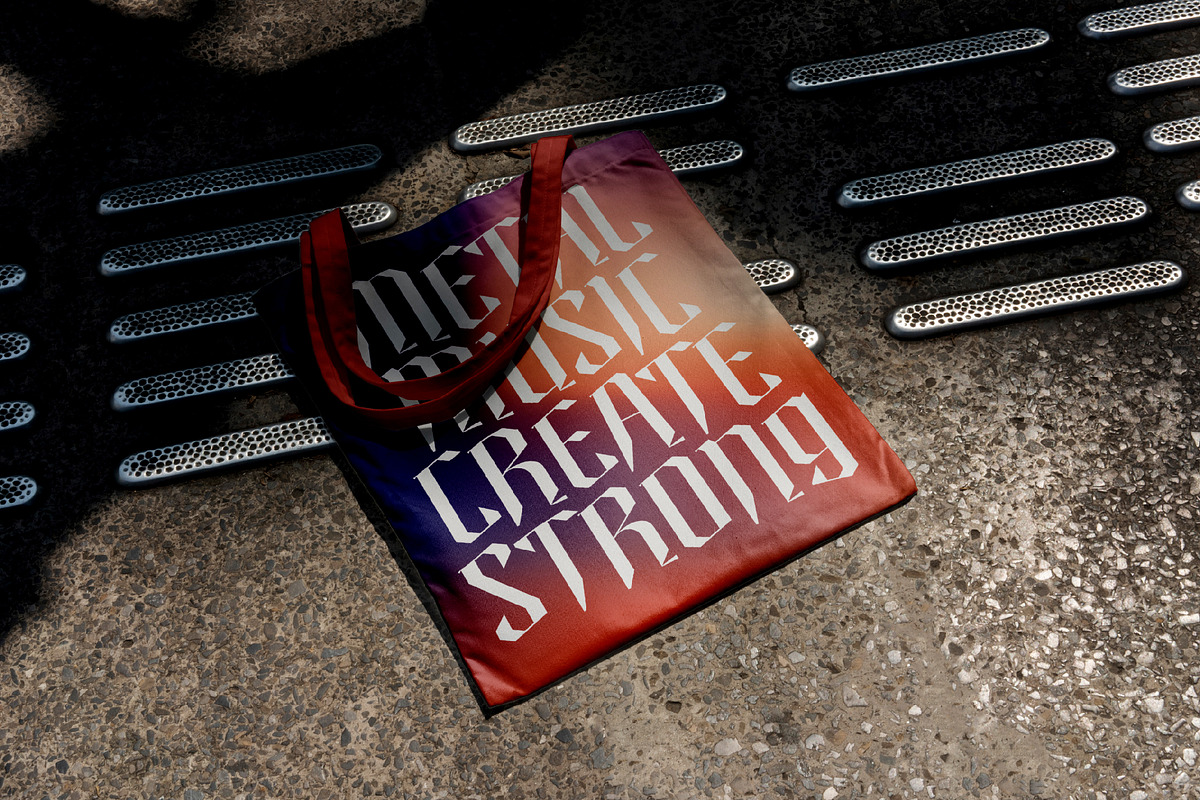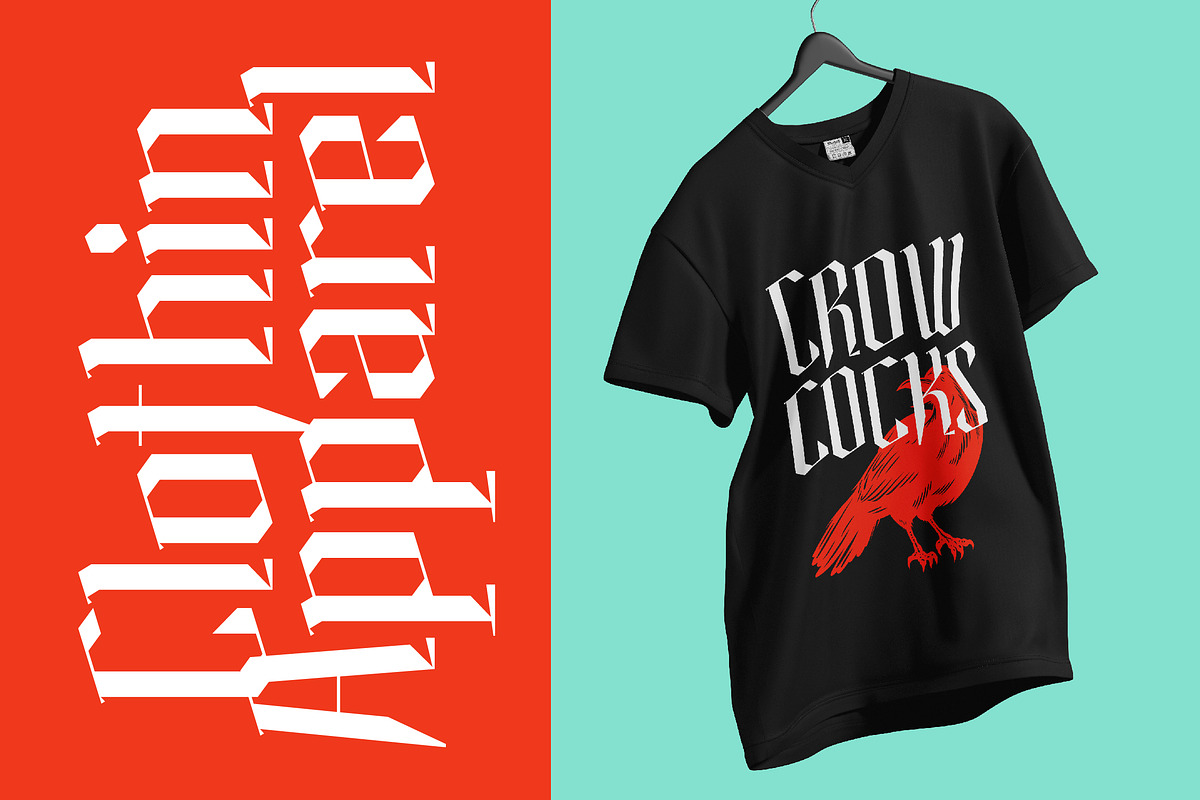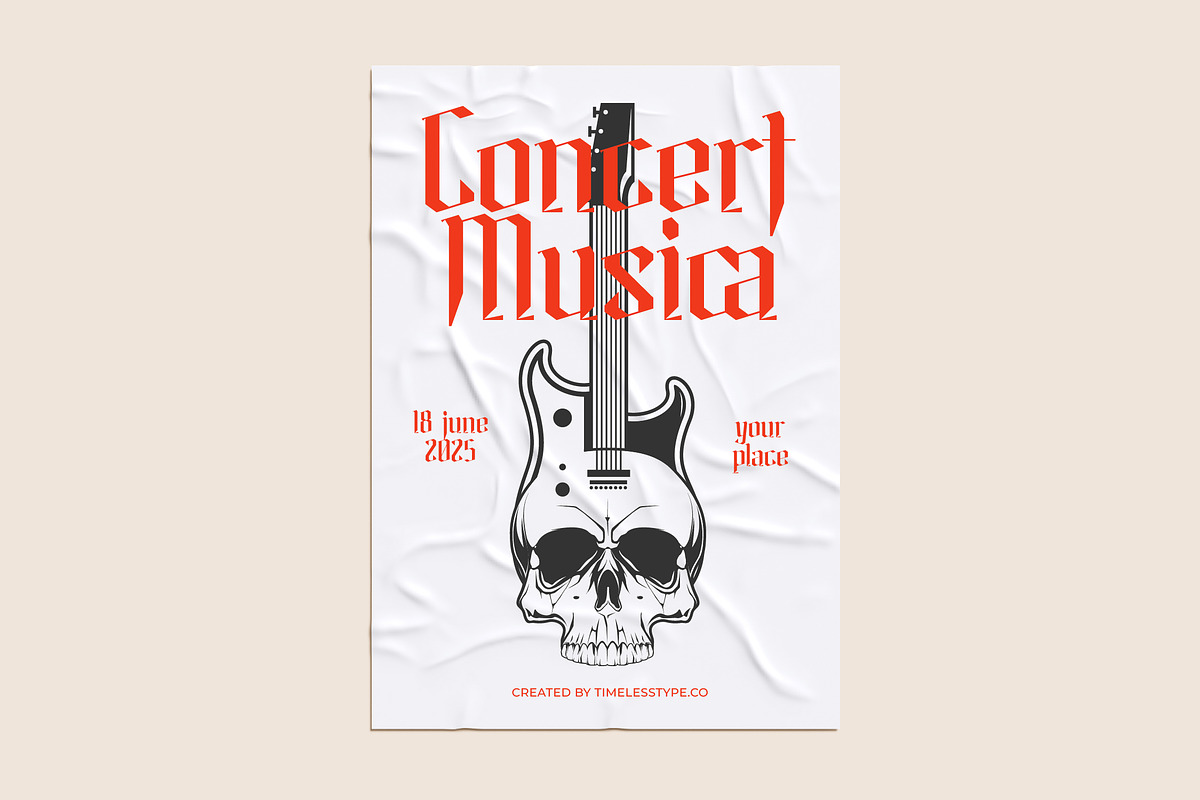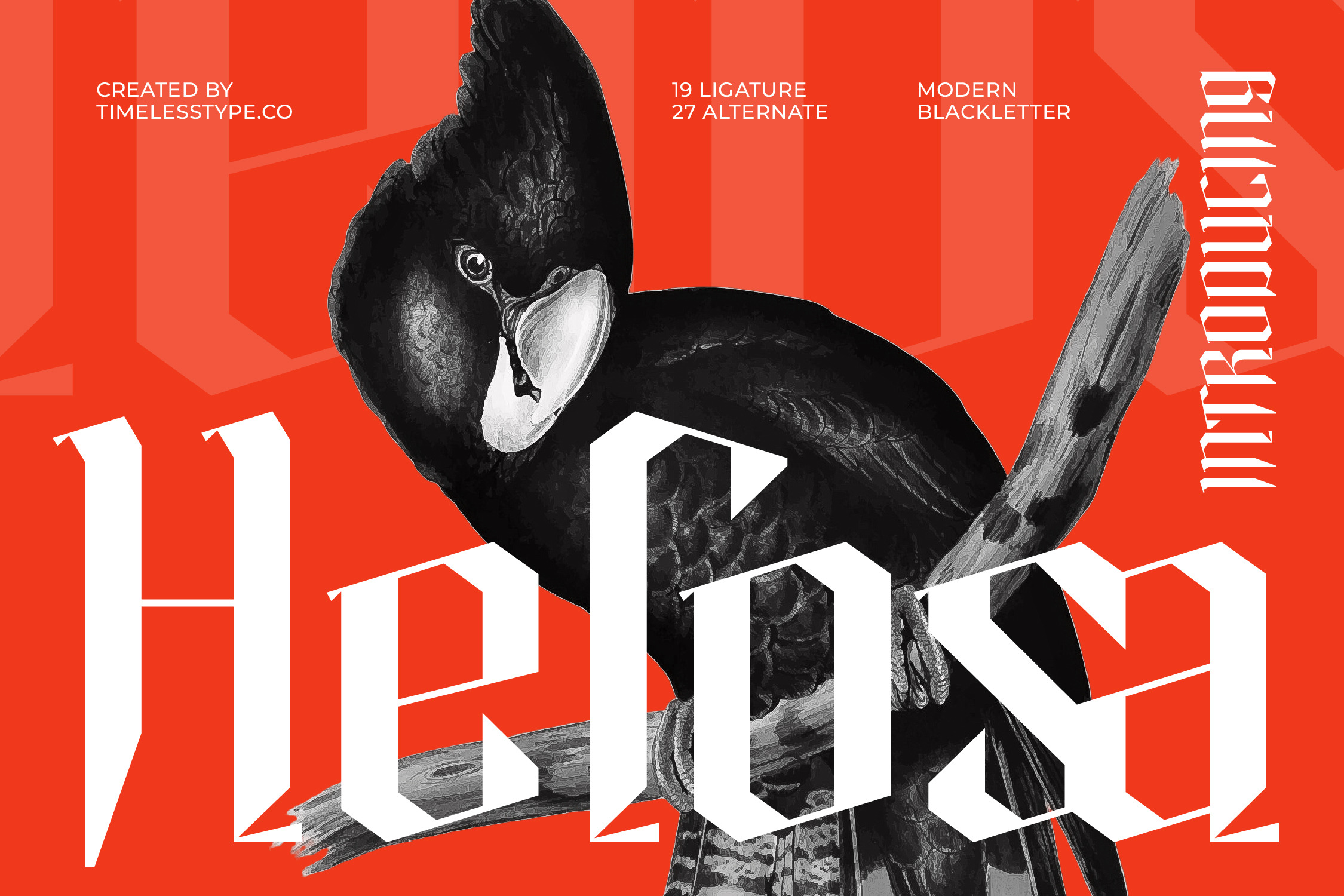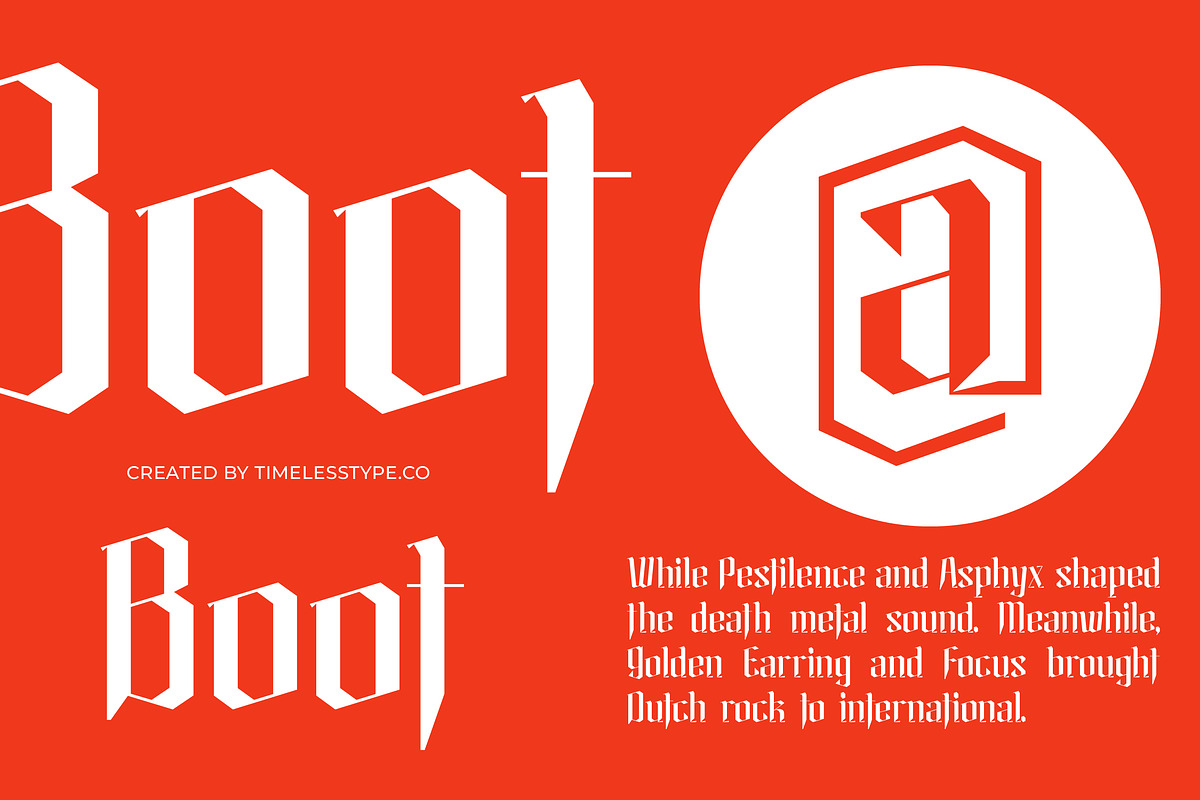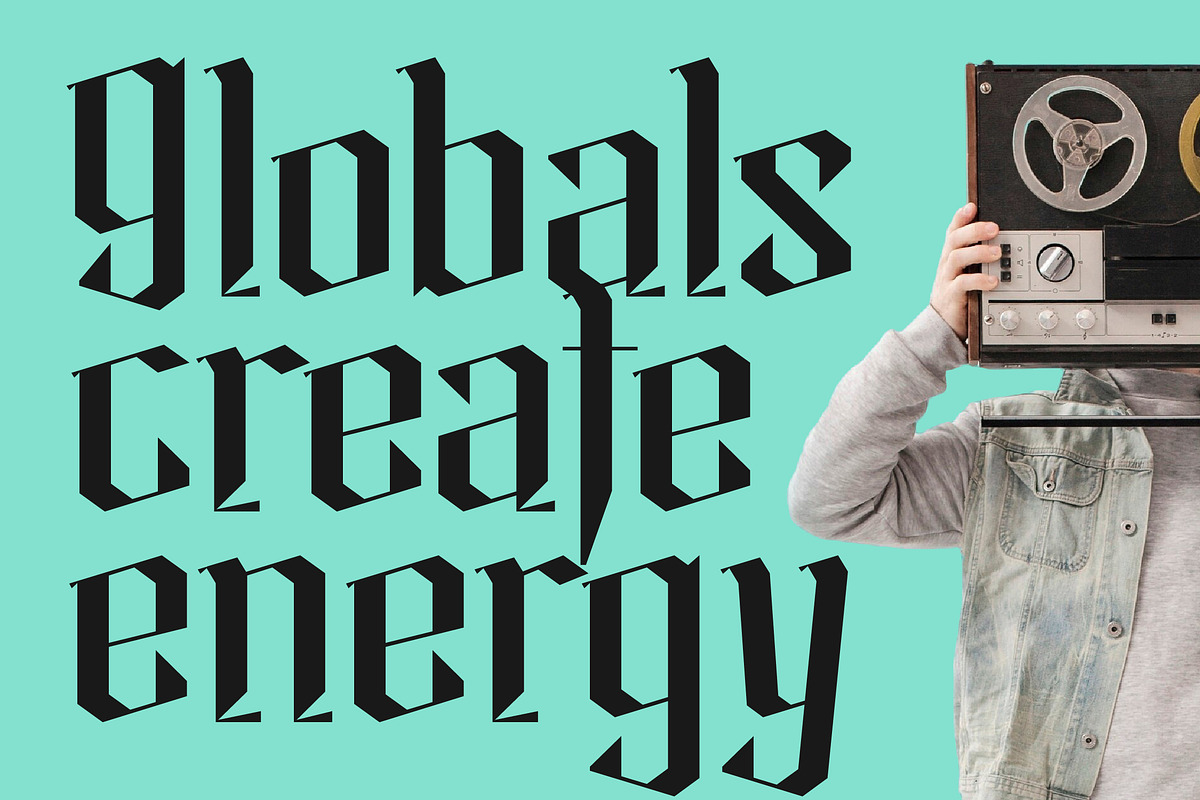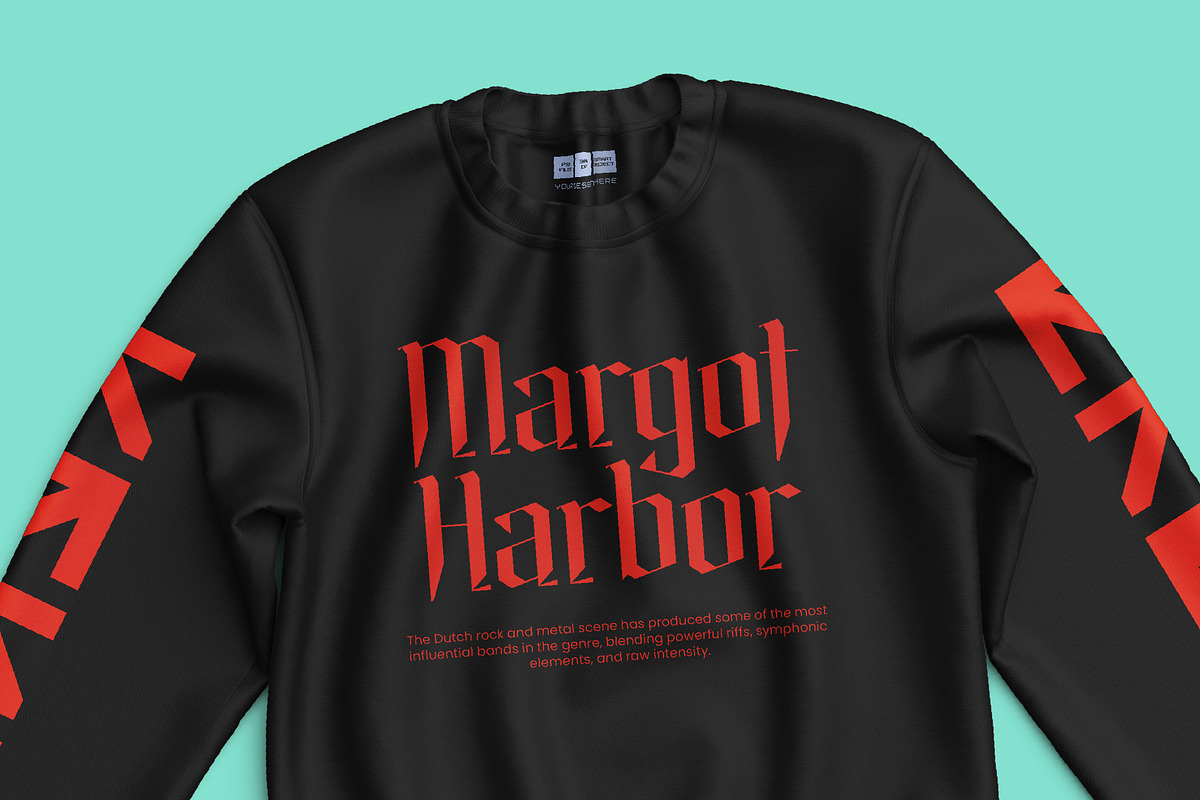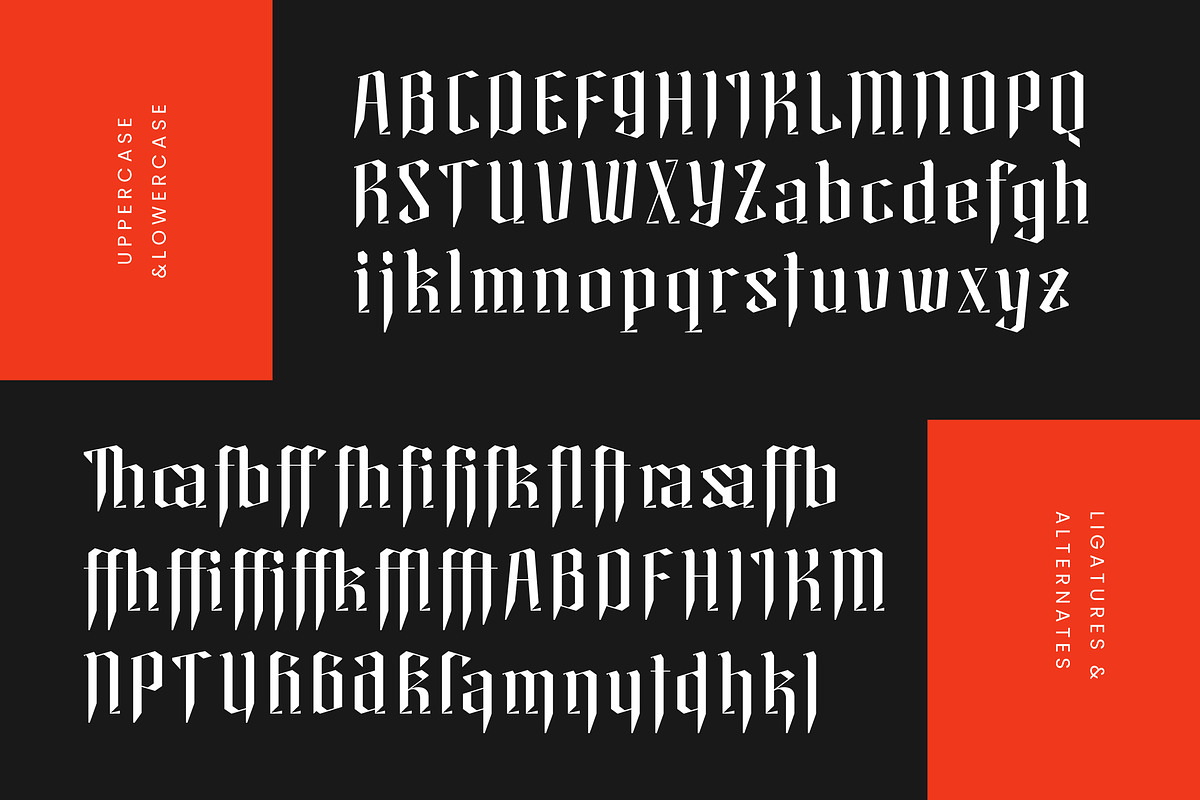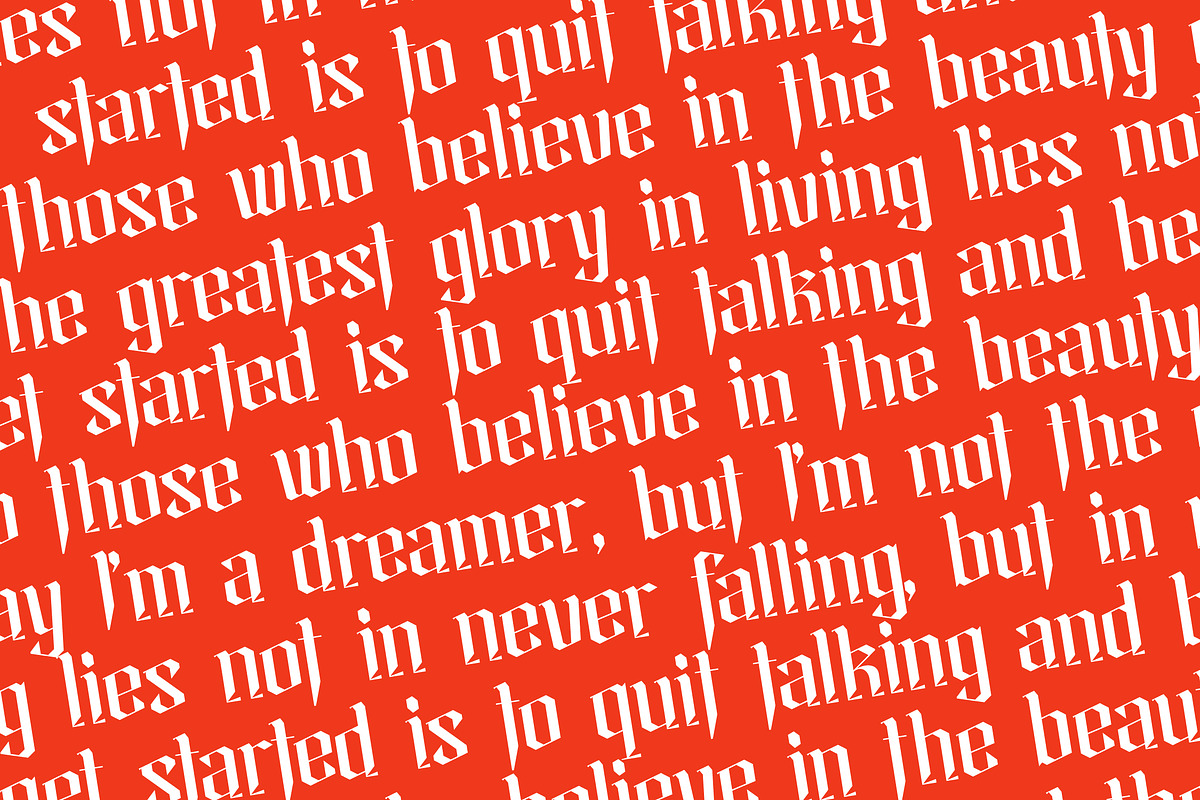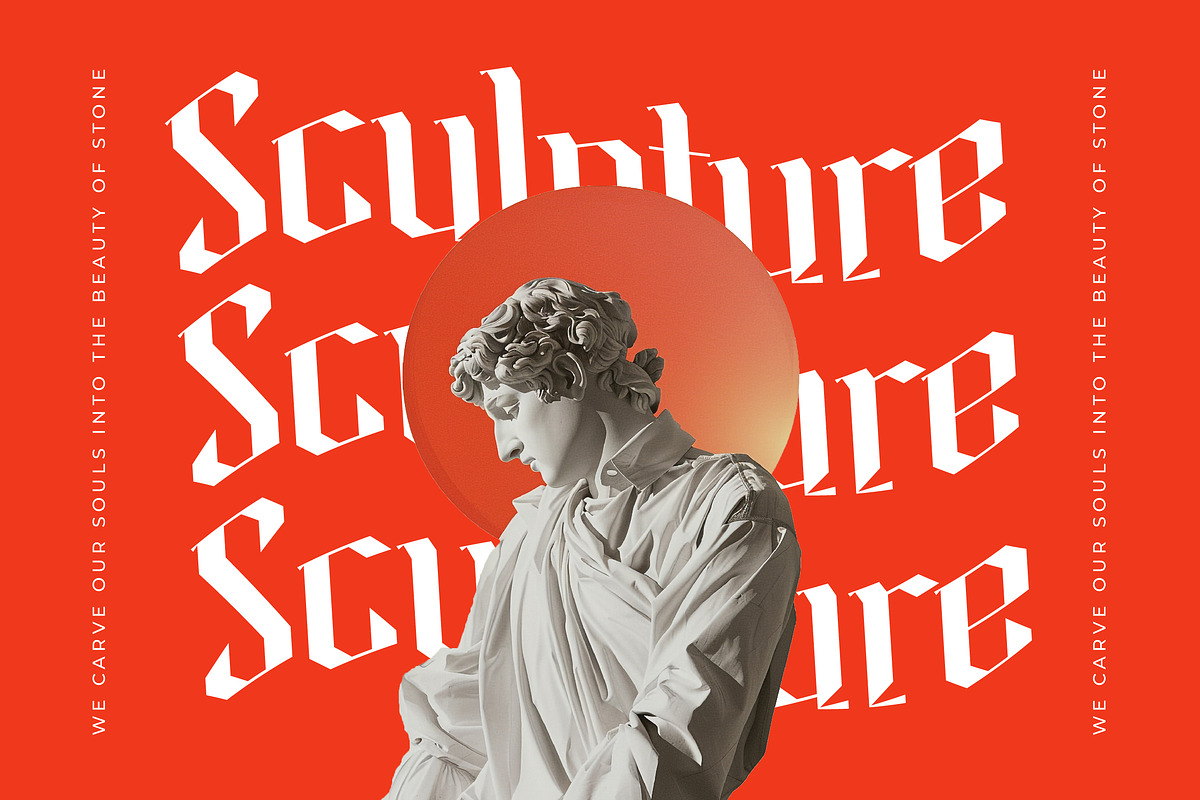
Helosa Modern Blackletter Font
Helosa is a striking fusion of historical weight and contemporary sharpness, designed to command attention with every stroke. This typeface transcends traditional boundaries to offer a visual experience that is both hauntingly beautiful and aggressively modern.
Inspired by the intricate geometry of ancient manuscripts and the raw energy of urban street culture, this font captures a unique atmosphere of dark elegance. The sharp, knife-like terminals and structured verticality evoke a sense of power and timeless craftsmanship.
As a modern serif display solution, it delivers a luxury typography feel that is perfect for projects requiring a high-contrast serif aesthetic with an edgy twist. Whether used for a minimalist layout or a complex composition, this editorial font ensures a massive branding impact that resonates with premium audiences.
Tapping into the current modern serif trend, this typeface stands out among editorial display fonts by providing a bold alternative to standard classics. Its character-driven typography is specifically engineered for designers who want to break the mold and define the next wave of visual identity.
This versatile tool is ideal for high-concept logo design and comprehensive branding systems that need a distinct edge. It excels in editorial layouts, avant-garde packaging, and unconventional wedding stationery, while remaining a staple for the high-end fashion industry.
Equipped with a robust set of ligatures and unique alternates, the typeface allows for endless creative customization. It includes a variety of swashes and full multilingual support with international characters, ensuring your message is heard clearly across global markets.
- Ligature 19 Alternate 27